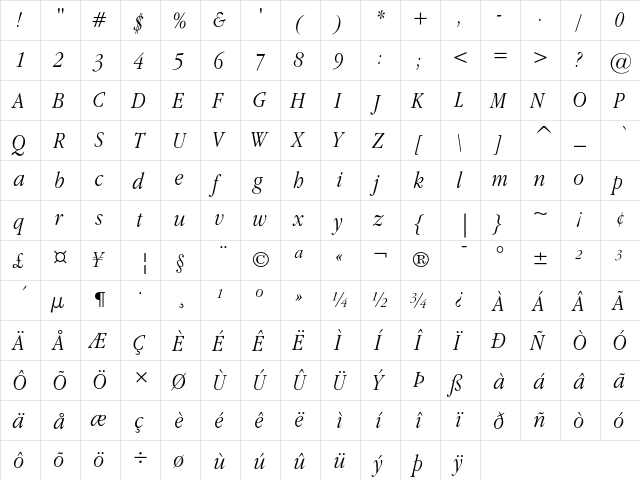
ITC Garamond Light Narrow Italic Font Preview
Design Context for ITC Garamond Typeface
ITC Garamond takes a measured approach to typography — its balanced proportions and neutral character make it a reliable workhorse for both digital and print work. Its italic angle brings a sense of urgency and motion to the letterforms. The delicate stroke weight brings airiness and refinement to layouts. The condensed width makes it efficient for tight spaces without sacrificing legibility.
Pro Tip: Try ITC Garamond for annotation and caption copy alongside an upright companion — the contrast in angle creates a dynamic but ordered typographic system.